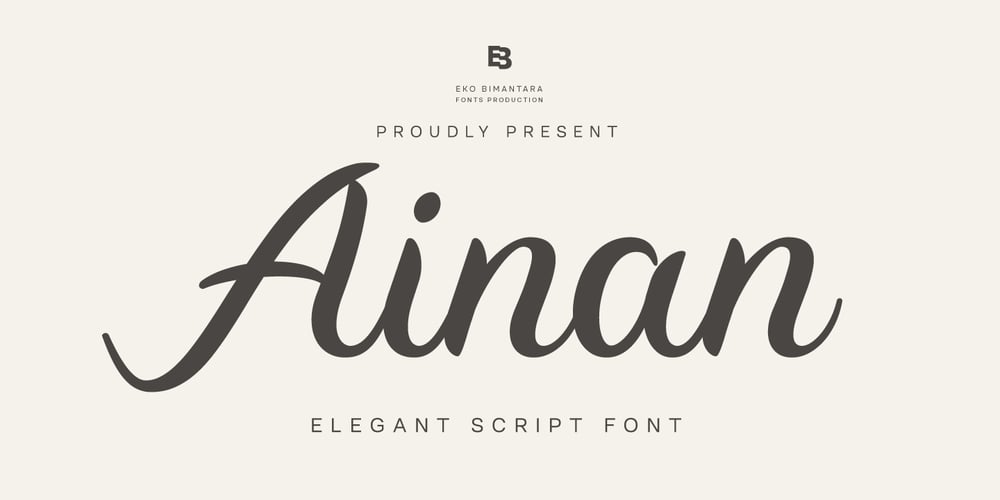
Ainan Font Family was designed by Eko Bimantara and published by Eko Bimantara. Ainan contains 1 styles and family package options. Ainan is an elegant and soothing script font designed and published by Eko Bimantara in October 2022, the typeface is carefully crafted with smooth strokes and proportional letterforms. Perfect for various design and creative needs, branding, logo, header, titles.